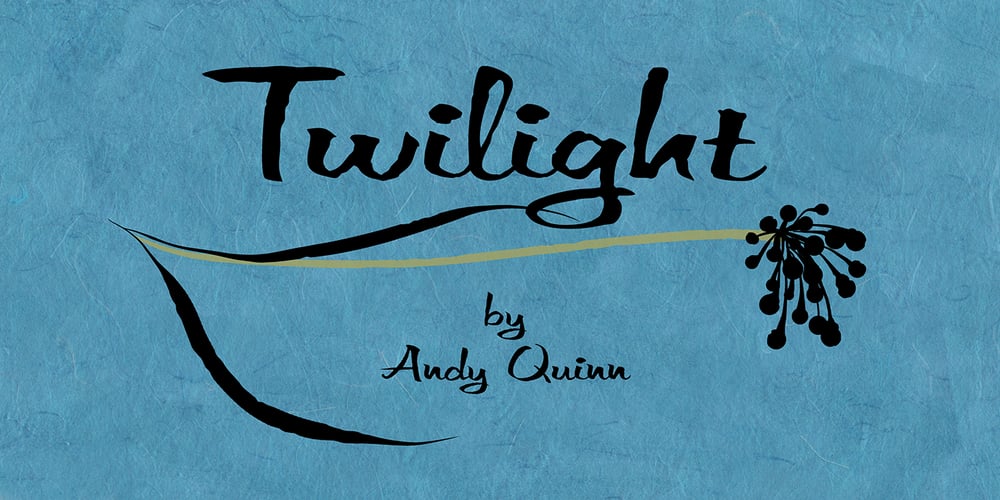
Hightide Font Family was designed by Ken Russell and published by Atlantic Fonts. Hightide contains 1 styles and family package options. Hightide is a rough, hand-lettered script font inspired by brush calligraphy of the 50’s and 60’s. It’s a cinch to use, and adds a welcome splash of salty vintage charm wherever it goes. Shown in posters with other Atlantic Fonts including Began and Reading.